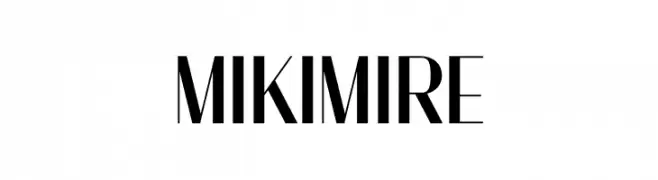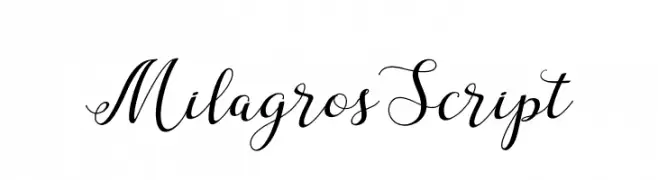
A delicate and elegant script font with flowing, interconnected lines.
A whimsical and elegant script font with flowing, interconnected letters.
A bold, decorative font with unique cut-out elements for a playful and edgy look.
A flowing and elegant script font with dynamic curves and decorative flourishes.
A bold, playful handwritten font with rounded characters.
An elegant and sophisticated script typeface with flowing, cursive style and elaborate swashes.
A modern, elegant font with high contrast and refined details.
A playful, handwritten font with a friendly and casual style.
An elegant script font with flowing, interconnected letters and ornate swashes.